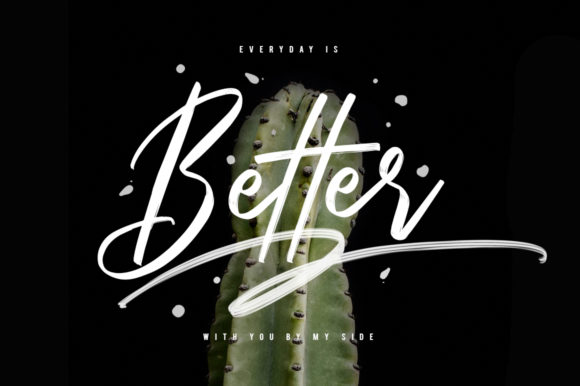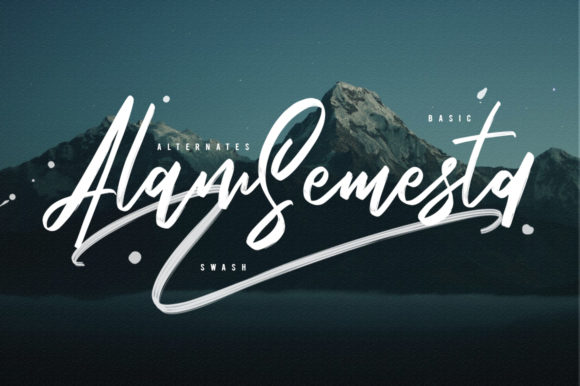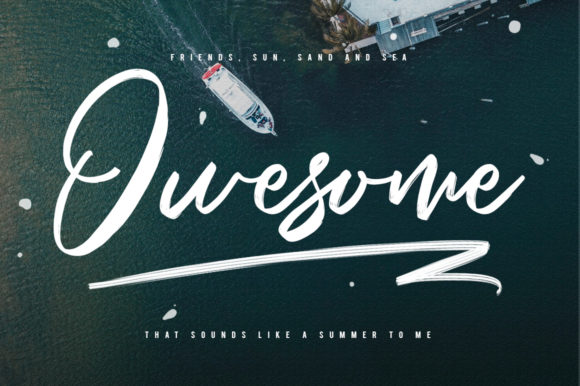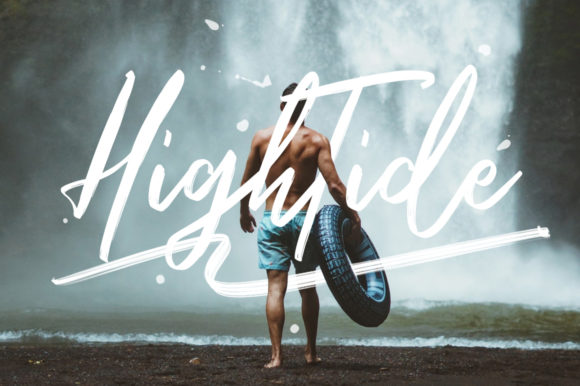
Introduction to Saintrop Font
Have you ever stared at a blank page, desperately searching for the perfect font to bring your creative project to life? I know I have. The frustration of scrolling through endless options, only to end up with something that just doesn’t quite fit, can be overwhelming. But what if I told you there’s a solution to this problem? Enter the Saintrop Font, a stunning hand-brushed font that’s about to become your new go-to design resource.
With its clean and quirky aesthetic, the Saintrop Font is perfect for all sorts of creative endeavors, from logos and branding to social media graphics and DIY projects. And the best part? It’s available for free download, making it a valuable addition to any designer’s toolkit.
Whether you’re a seasoned pro or just starting out, the Saintrop Font is a high-quality resource that’s sure to elevate your designs and take them to the next level. With its transparent background and effortless style, this font is sure to become a staple in your design arsenal.
Key Features of Saintrop Font
- Features a unique, bold, and modern design style
Honest Review: Saintrop Font
I recently had the chance to try out the Saintrop Font, and I must say, it’s a great addition to any design resource. As a designer, I’m always on the lookout for high-quality fonts that can elevate my creative projects.
Here’s what works well: ✨ The Saintrop Font is incredibly versatile, with a unique blend of modern and vintage elements. It’s perfect for creating a unique and eye-catching visual identity for your brand or design project. I also appreciate the transparent background, which makes it easy to work with and customize to your needs.
Here are some of the key features I like about the Saintrop Font:
- High-quality design with a unique aesthetic
- Perfect for creative projects, such as branding and advertising
However, there are a few limitations to keep in mind: ⚠️ The font only includes a limited number of weights, which may not be suitable for all design applications. Additionally, the font may not be compatible with all operating systems or software.
Overall, I’m impressed with the Saintrop Font and would recommend it to designers looking for a unique and high-quality font to add to their design resource. While it may have some limitations, its strengths make it a valuable addition to any creative project.
How to Use Saintrop Font
The Saintrop Font is a high-quality design resource that can elevate your creative project to the next level. This versatile font offers a unique aesthetic that can add a touch of sophistication to your designs.
Tips for Getting the Most Out of Saintrop Font
To get the most out of the Saintrop Font, try the following tips:
- Use the Saintrop Font with a transparent background to create a striking design effect.
- Combine the Saintrop Font with other design elements, such as images or graphics, to create a cohesive design.
The Saintrop Font is perfect for a variety of creative projects, including:
- Marketing materials and flyers
- Branding and logo designs